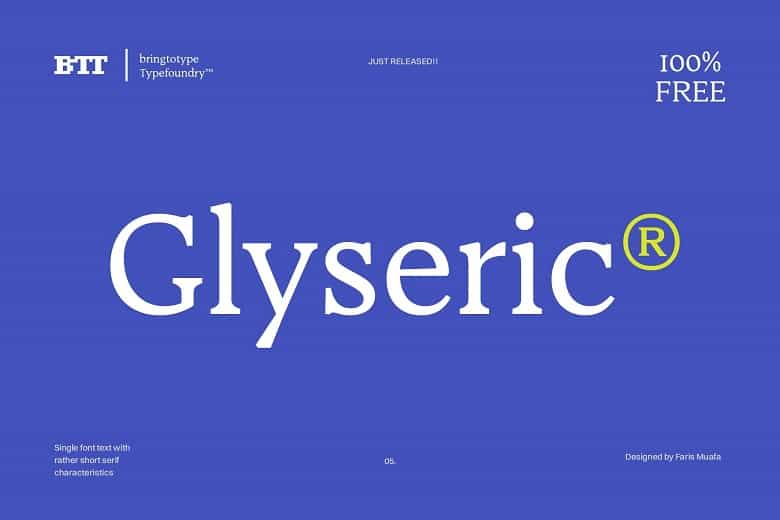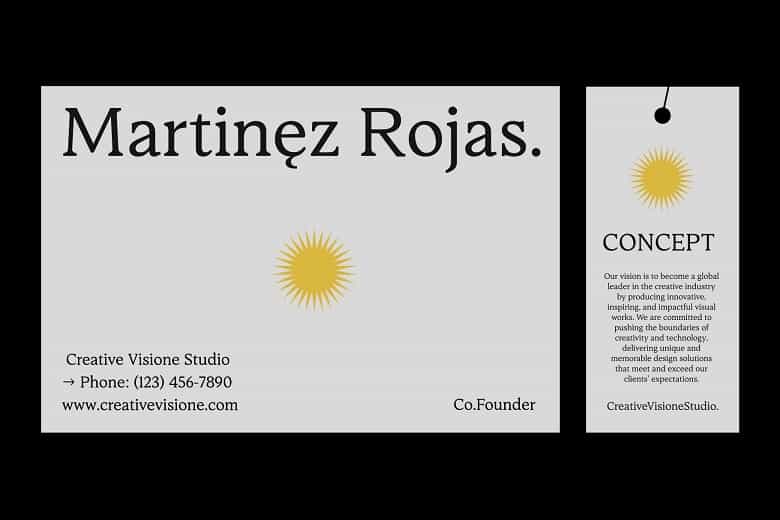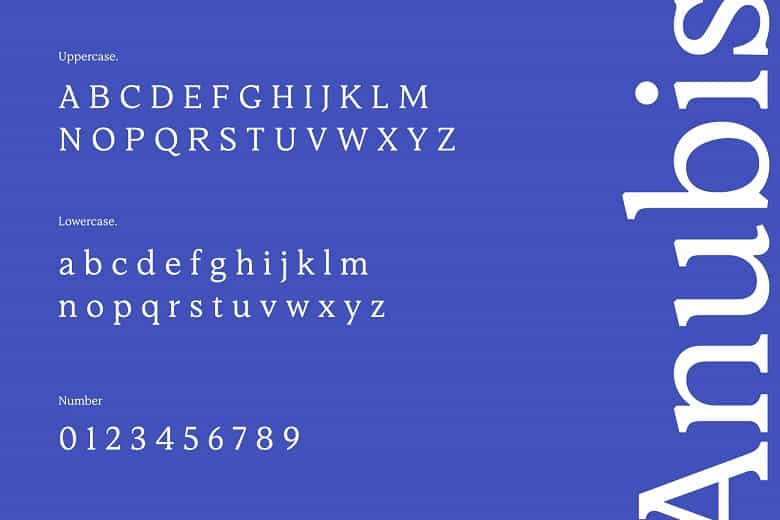
Glyseric can be considered as a highly developed serif font which incorporates the classical features with the contemporary design concepts. Due to its short serifs and rather harmonious letter shapes, it is a very universal and sophisticated font suitable for numerous design projects.